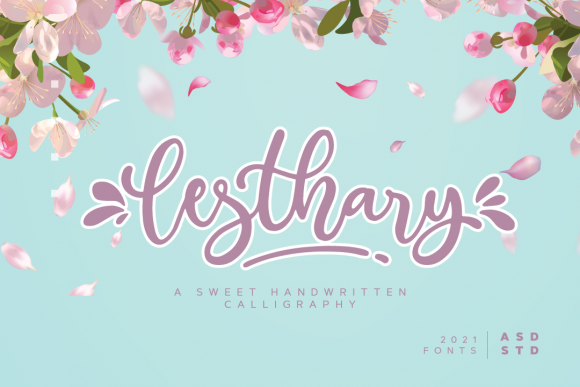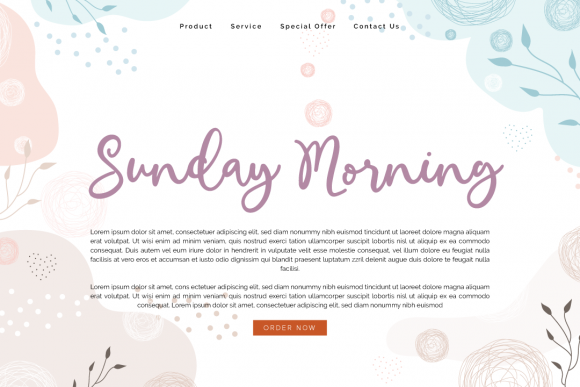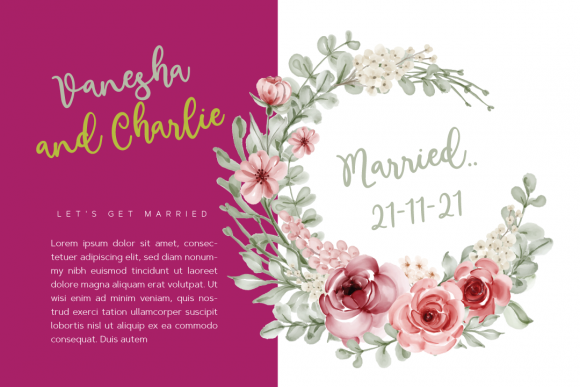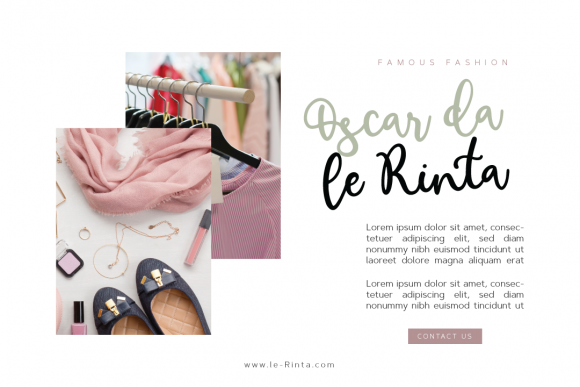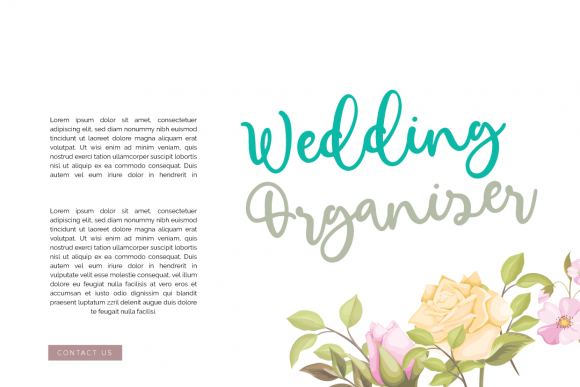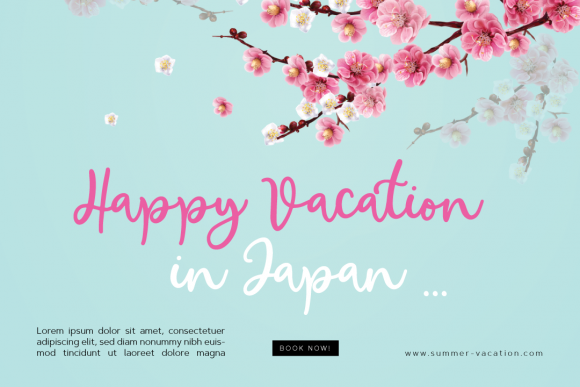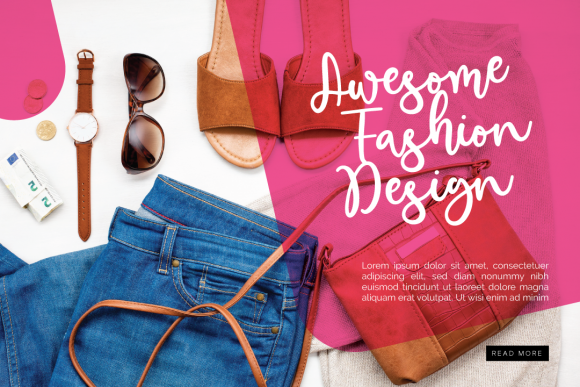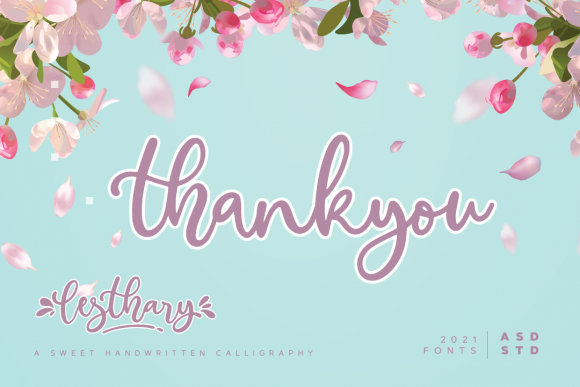
Lesthary Font
About Lesthary Font
Lesthary is a unique and elegant handwritten font. It looks beautiful on a variety of designs requiring a personalized style, such as wedding invitations, thank you cards, weddings, greeting cards, logos and so on.